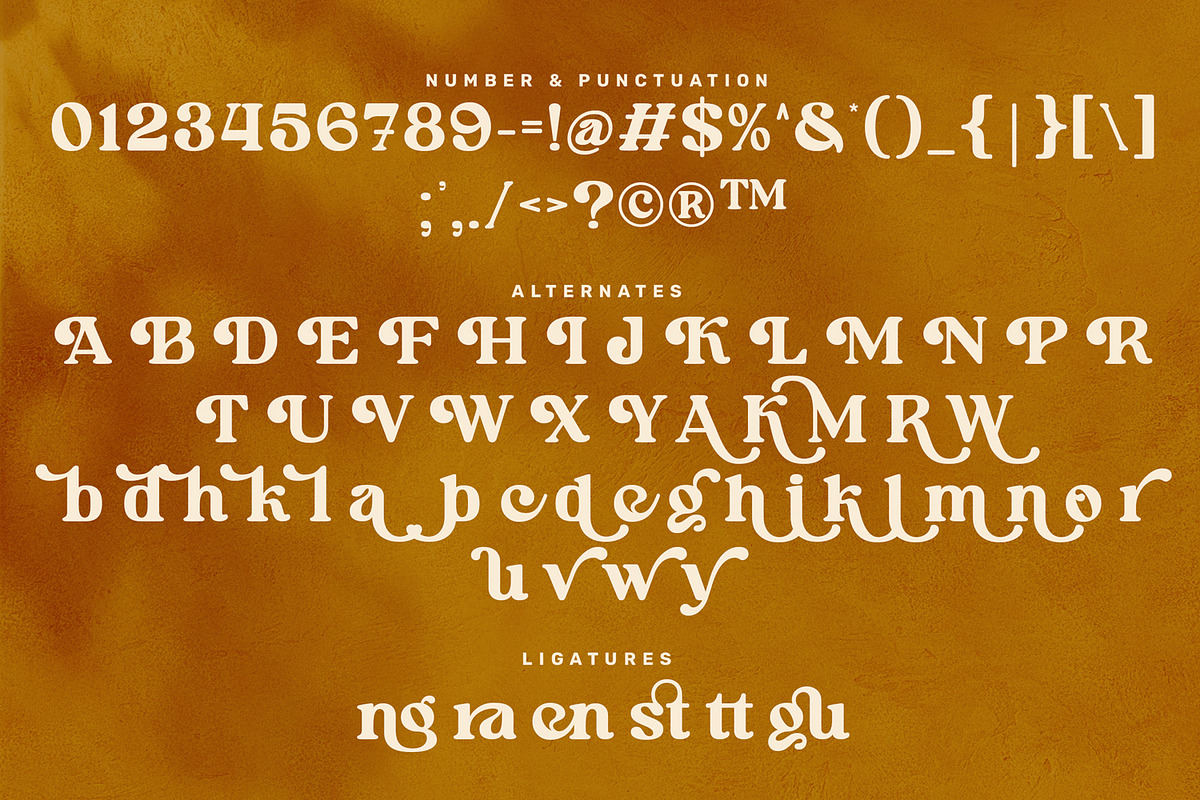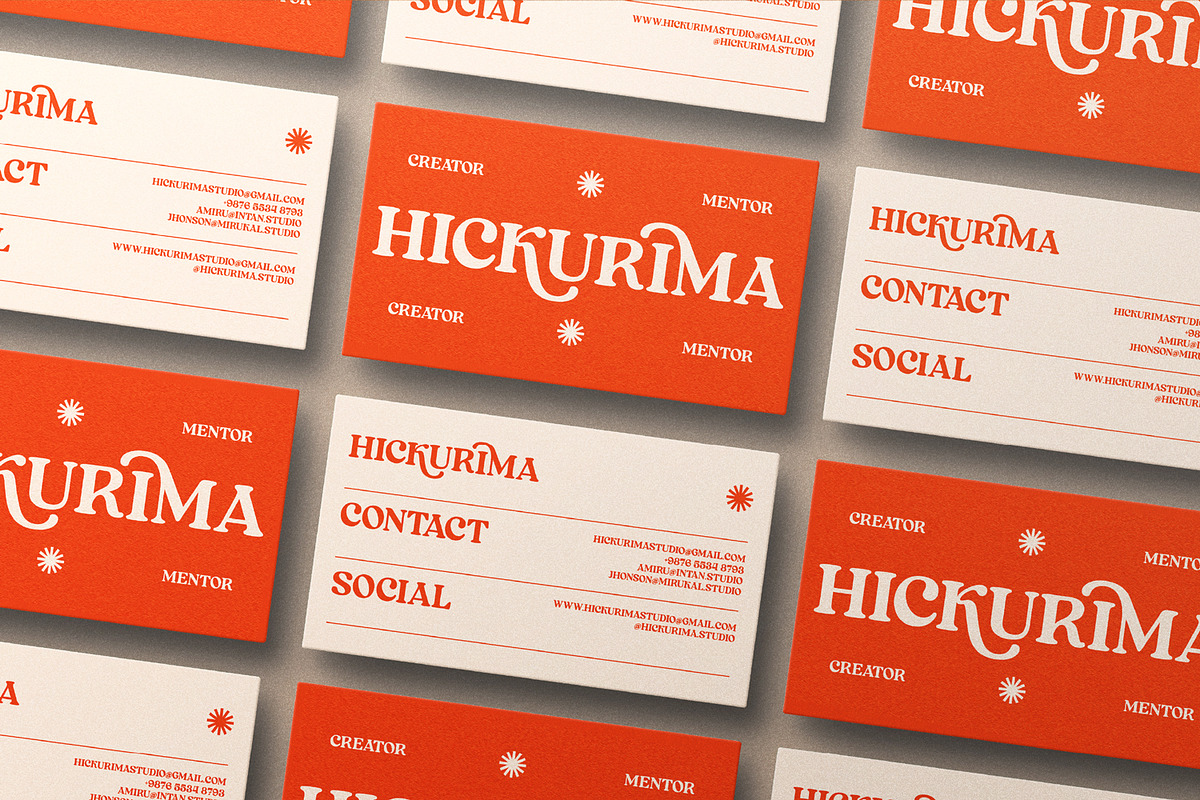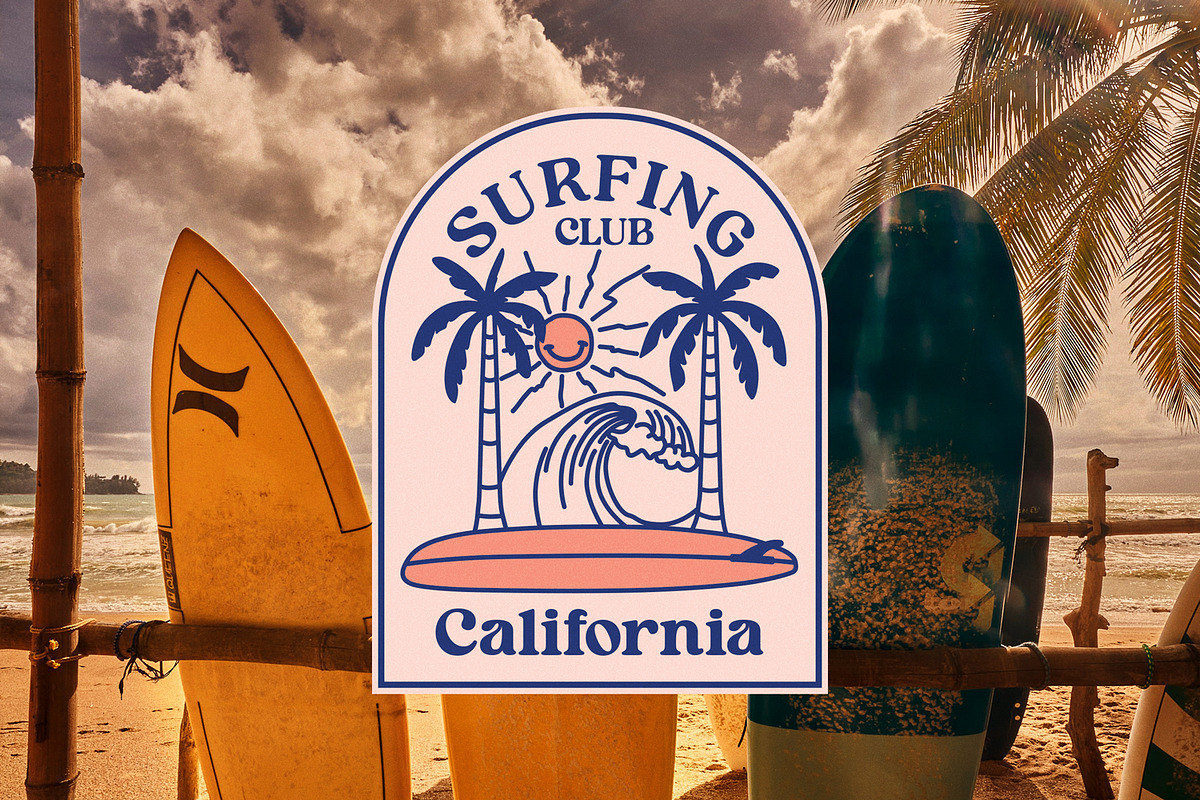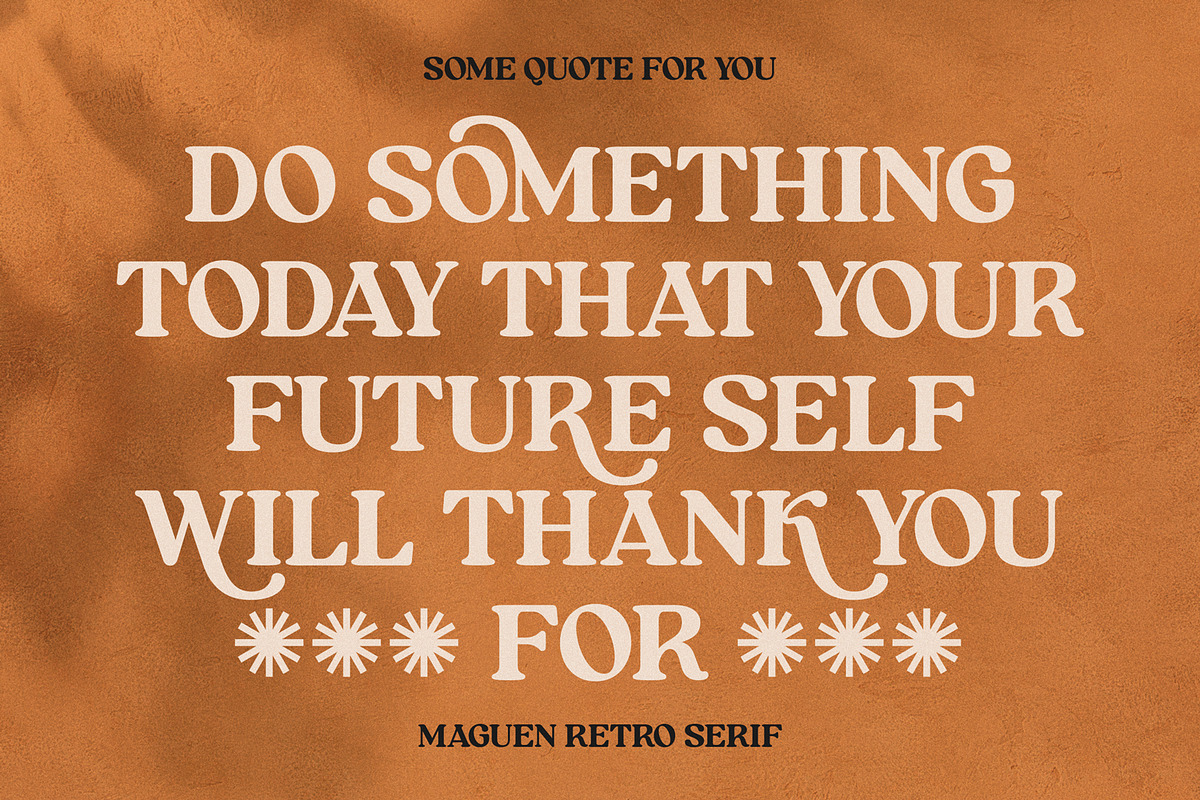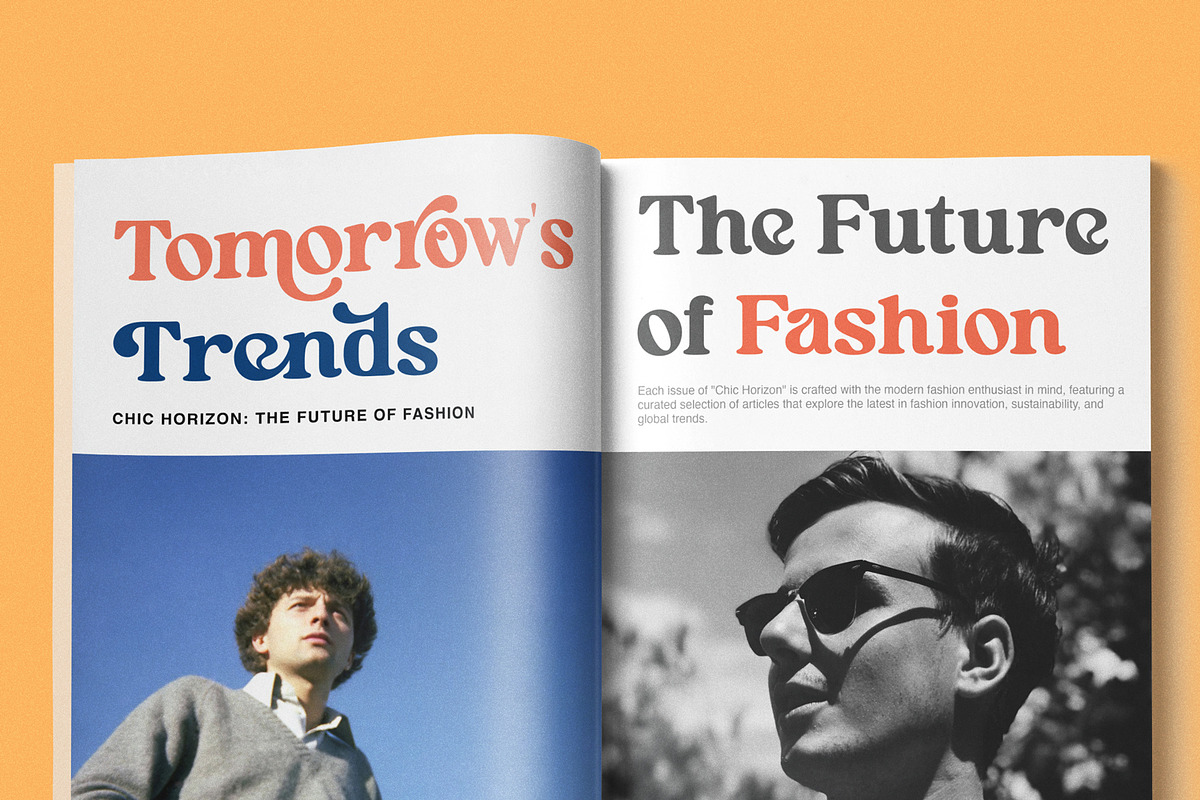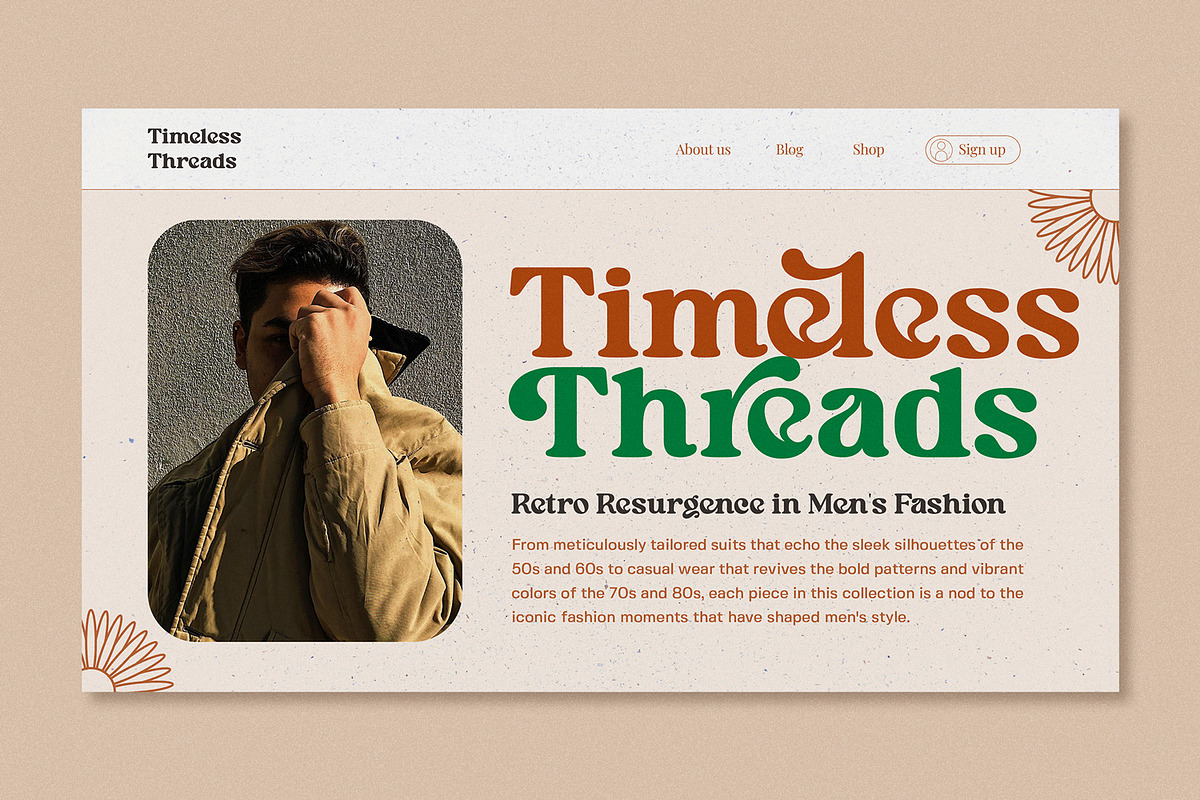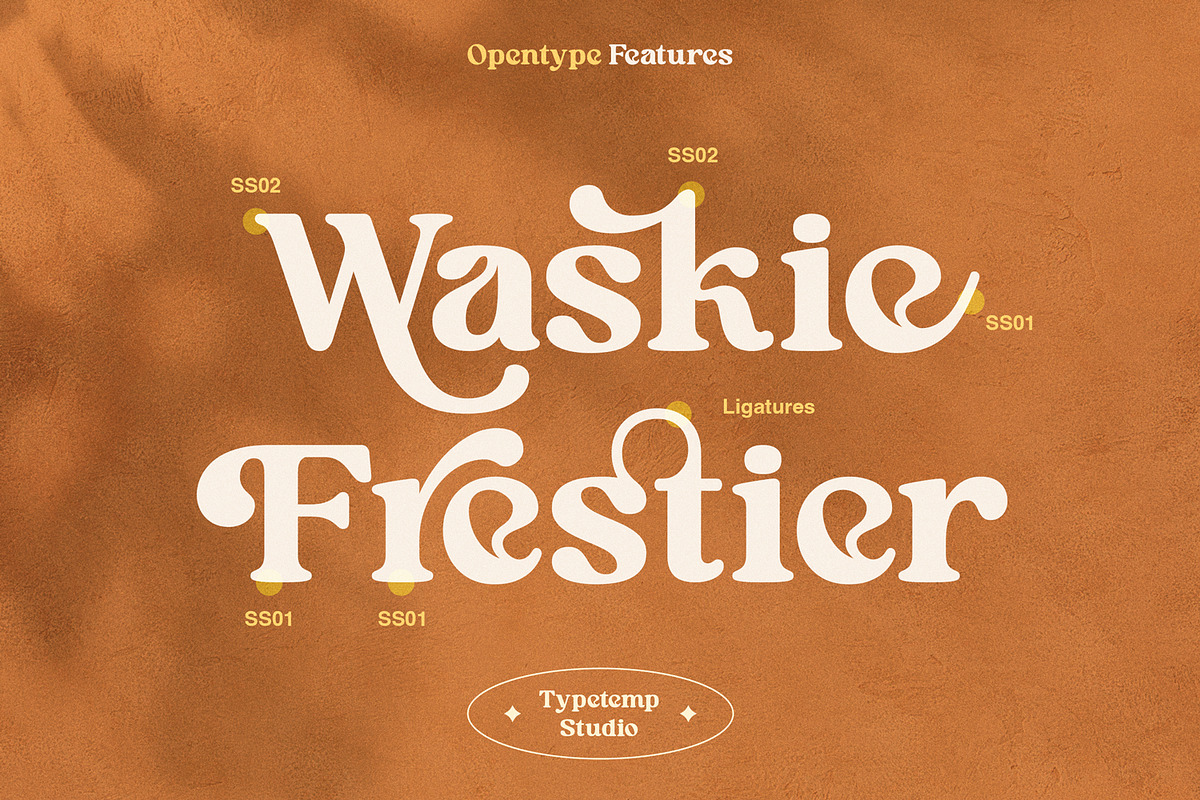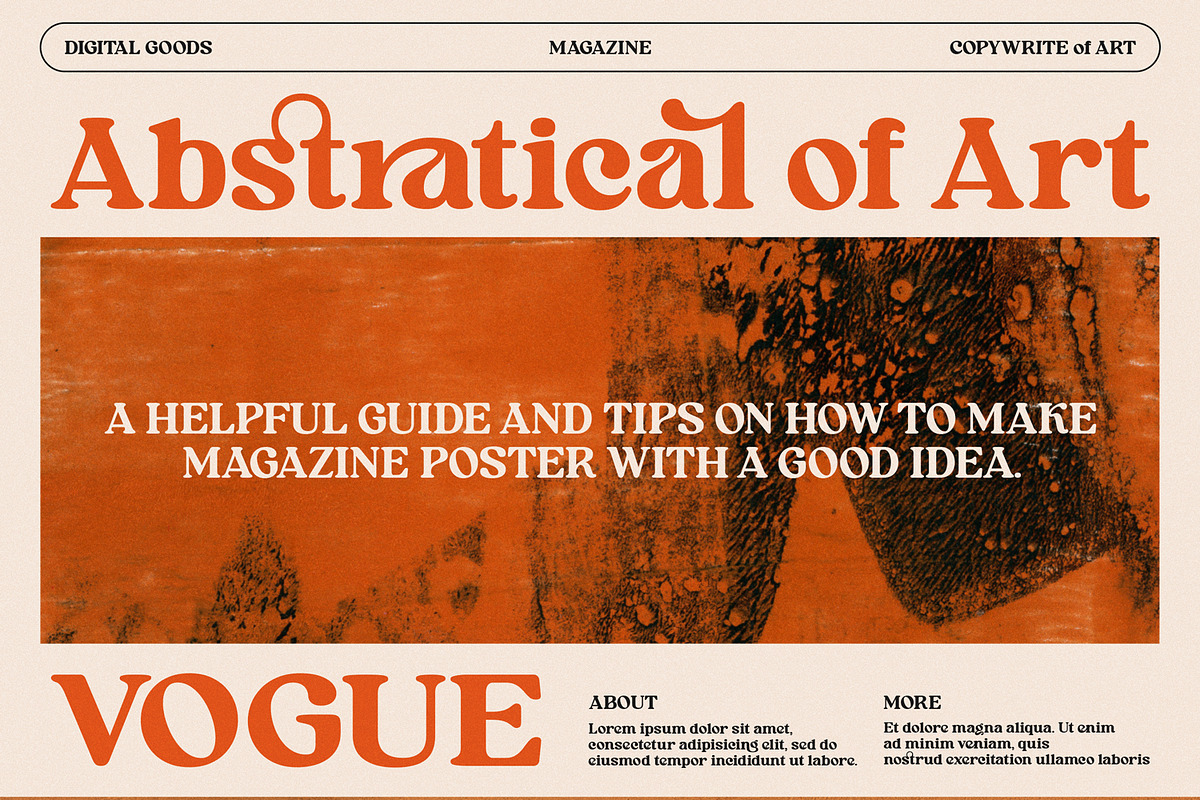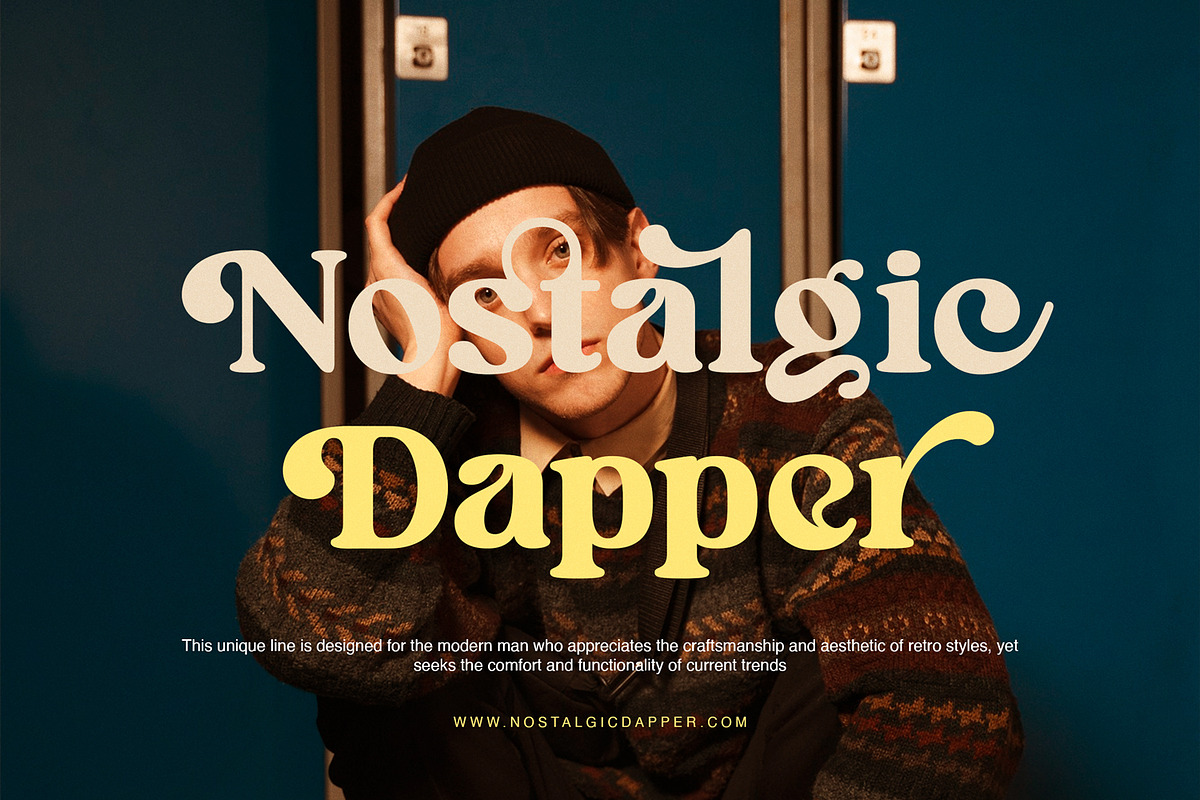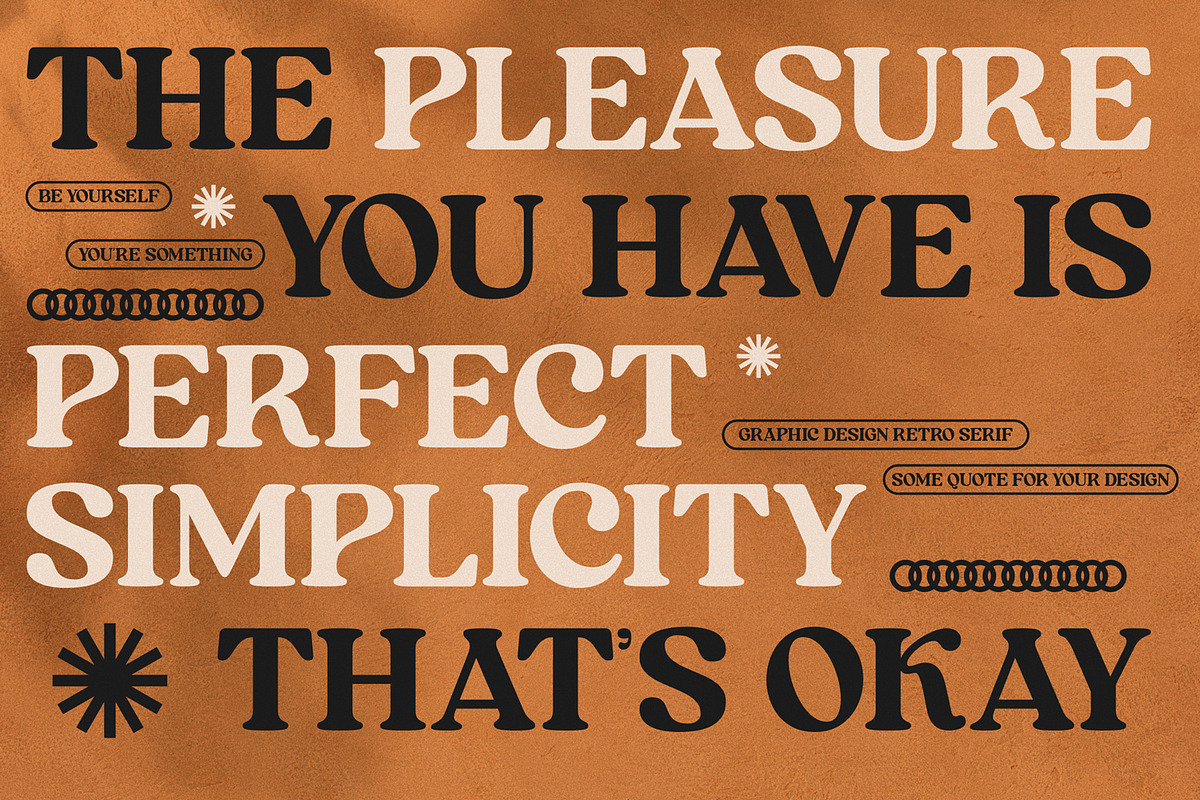
Maguen Modern Retro Display
Maguen Modern Retro Display a font with Graffity Bubble Style. Comes with alternatives and ligatures, helps to create stunning Posters, Branding, Tshirt, Social Media Graphics and much more.